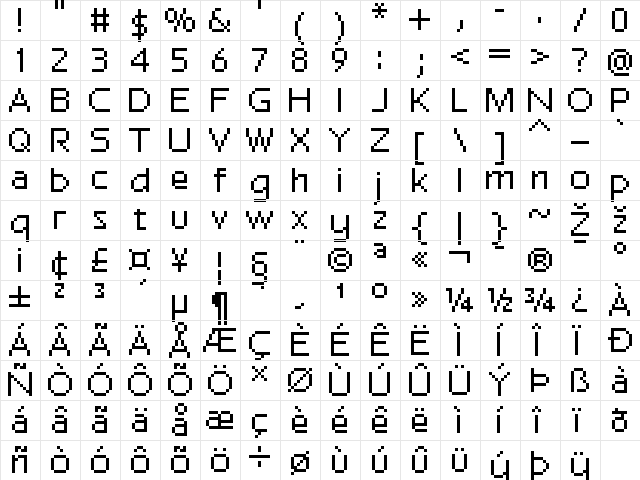
FFF Magazine Regular
Design Context for FFF Magazine Typeface
FFF Magazine is a composed and adaptable typeface that performs quietly and consistently across a wide range of design contexts.
Pro Tip: Pair FFF Magazine with a font of contrasting weight or personality to build a more expressive typographic hierarchy.